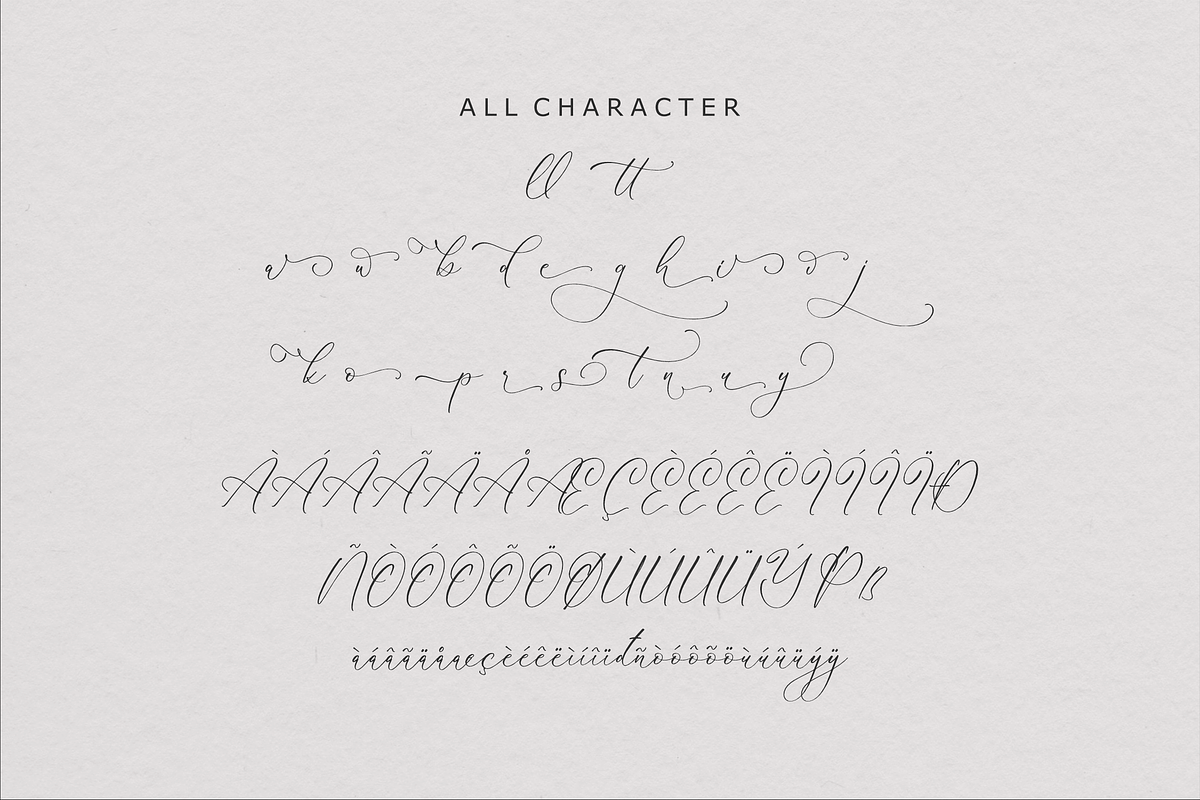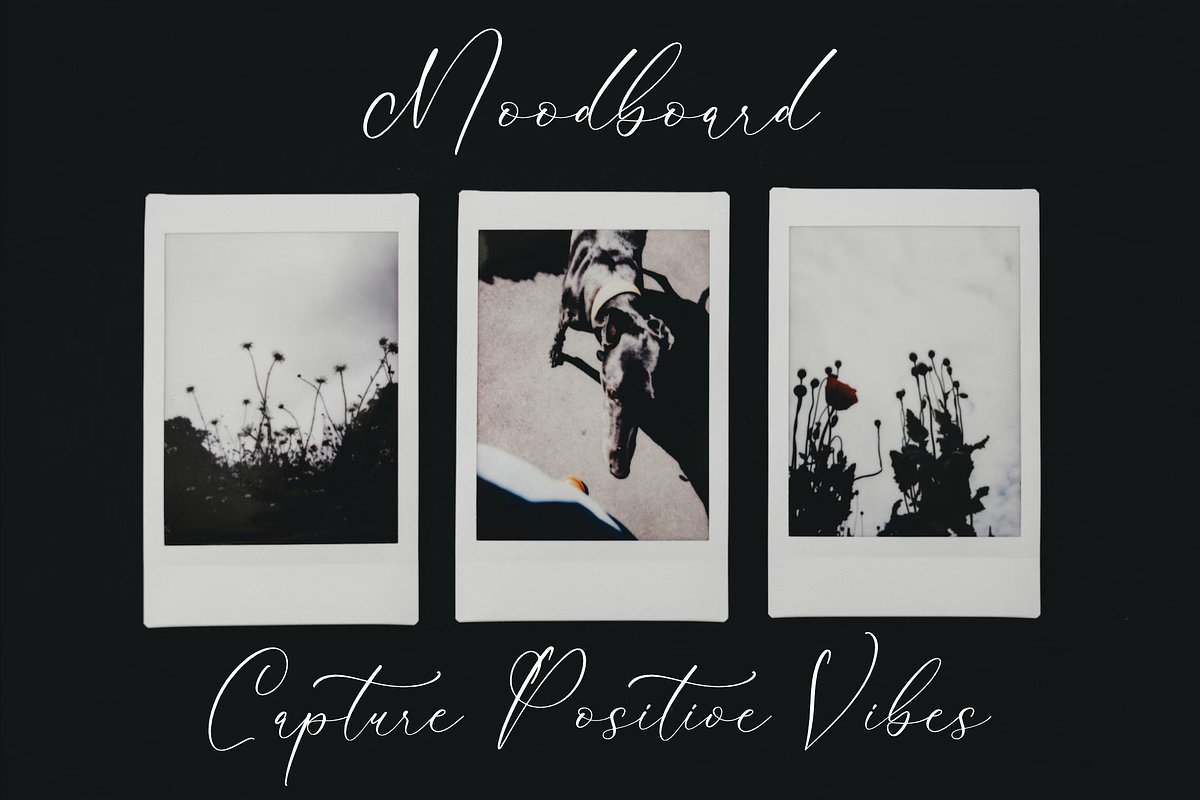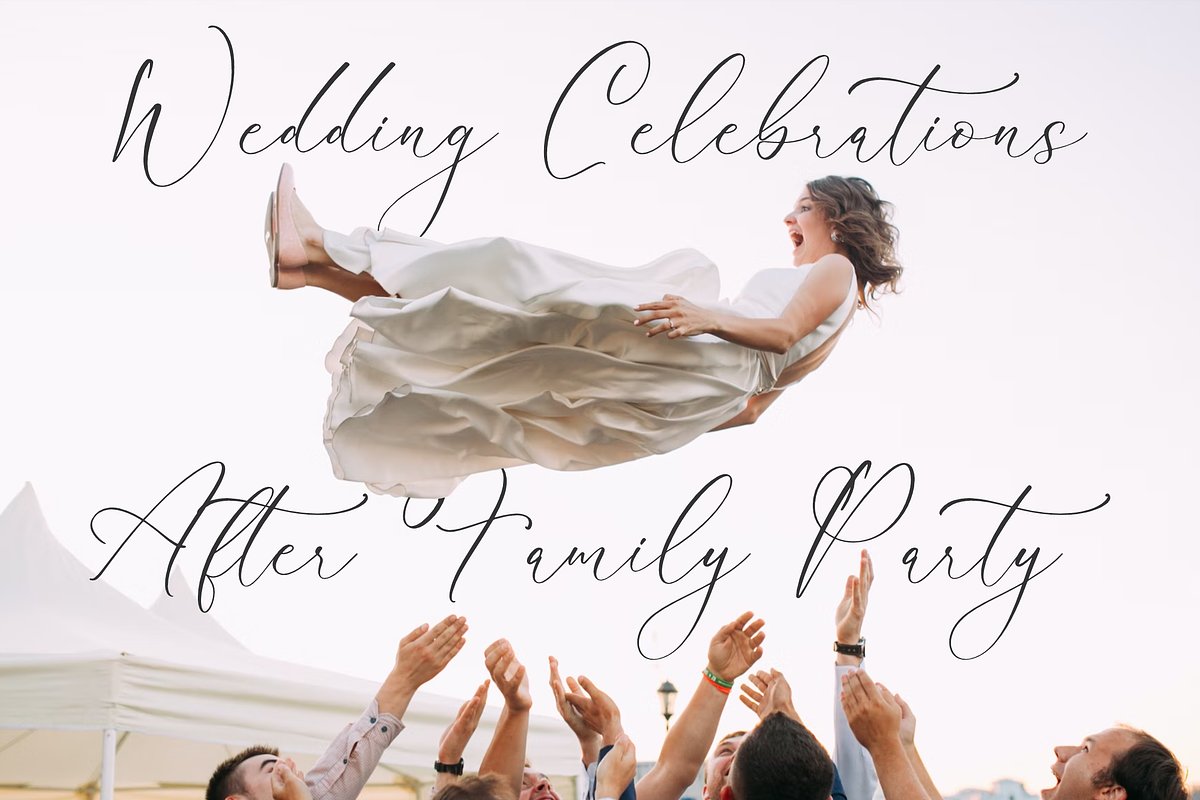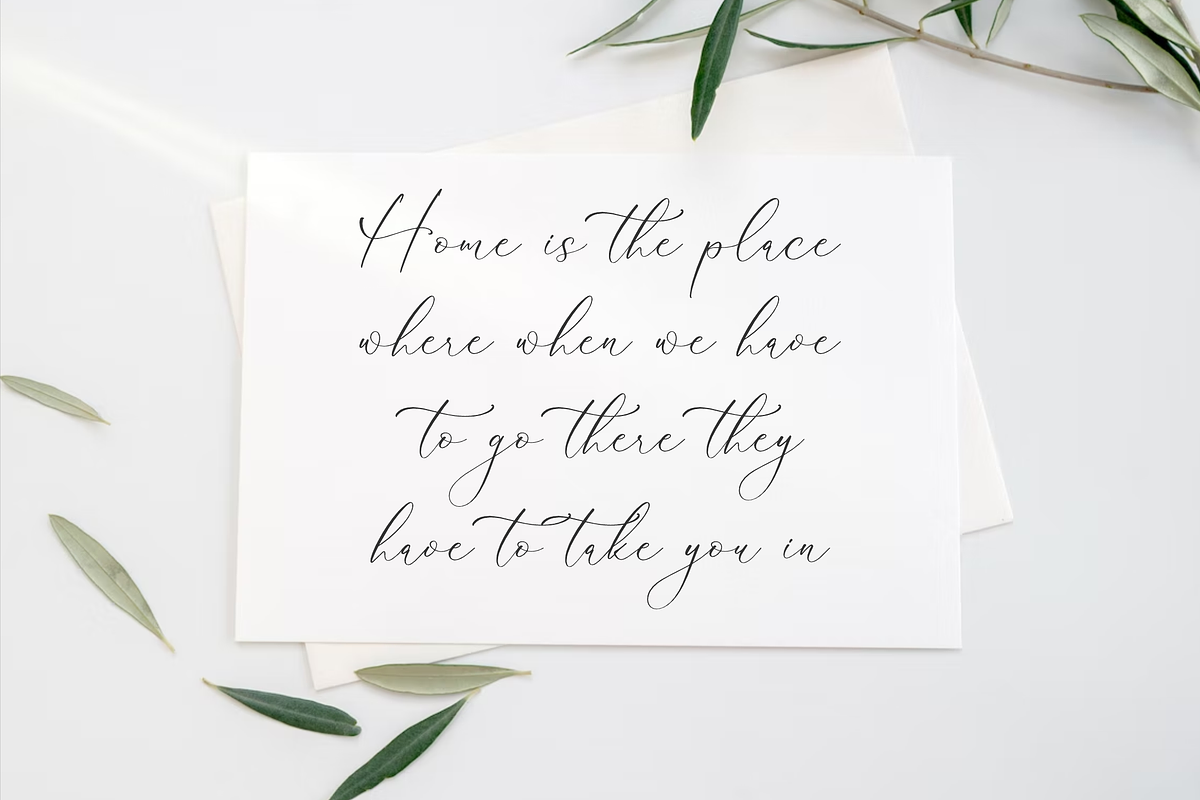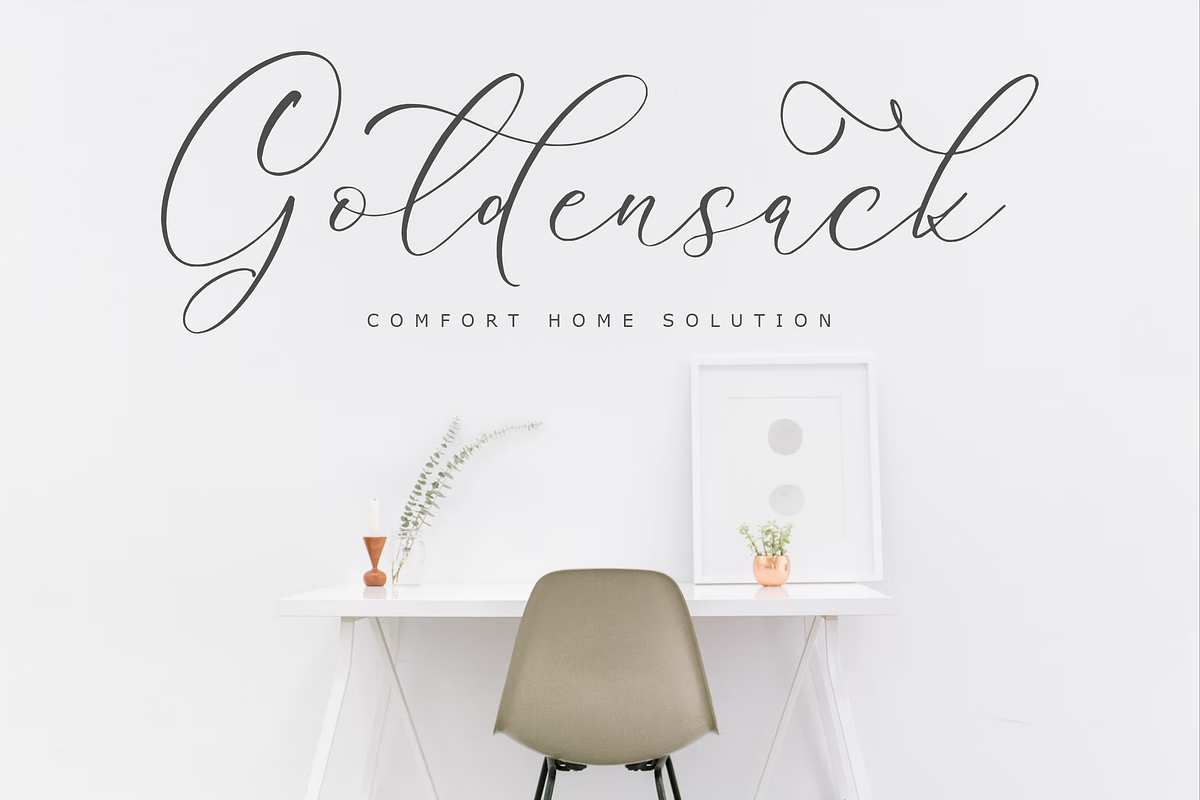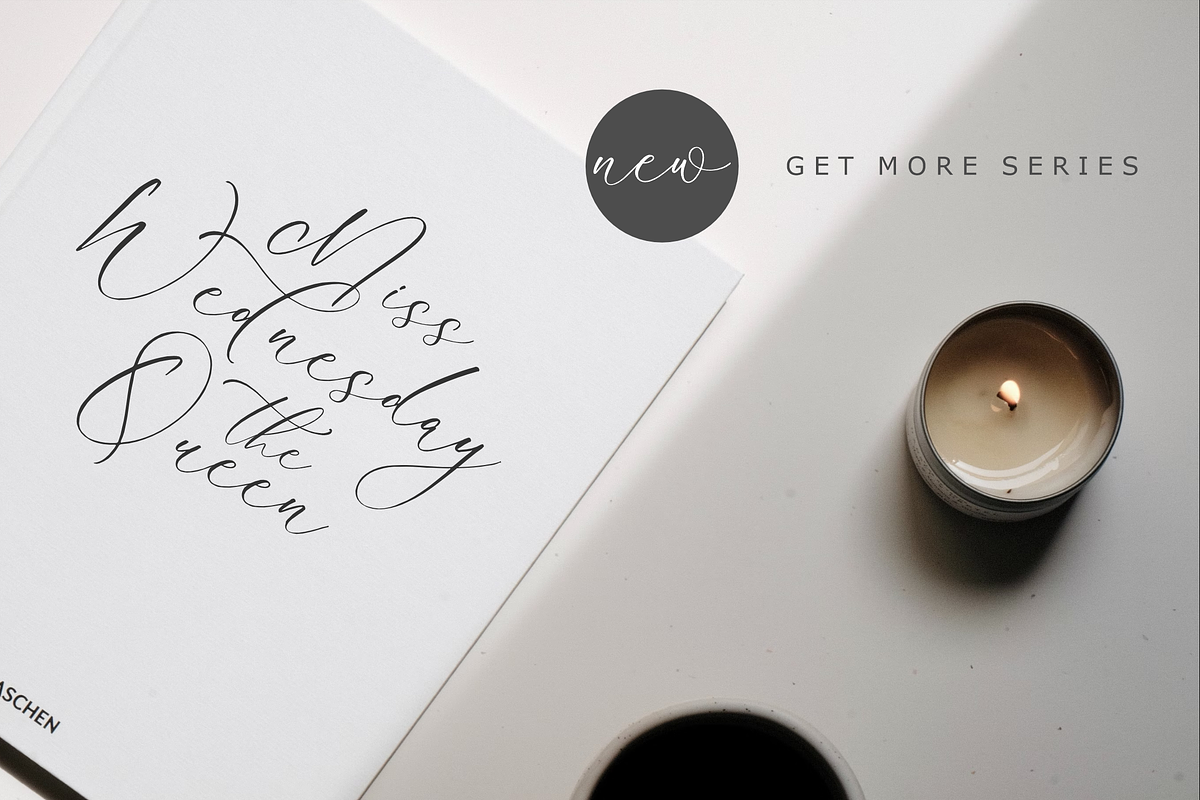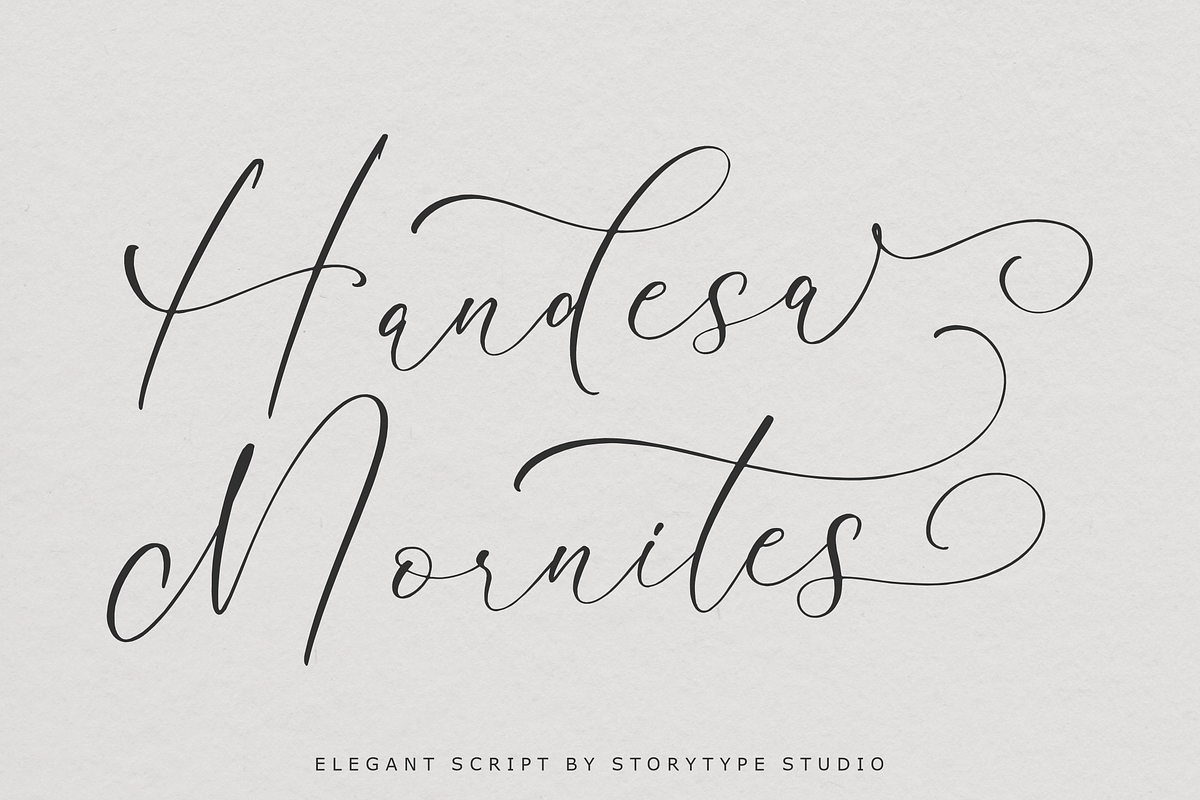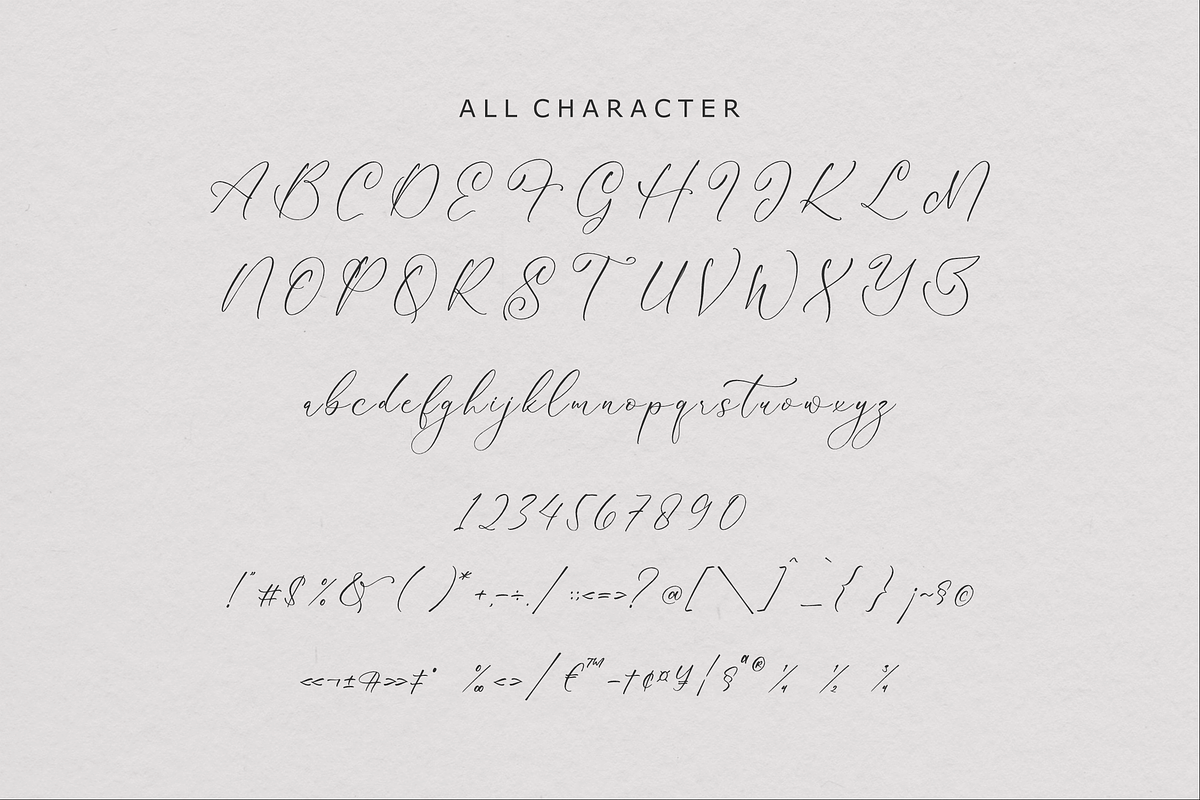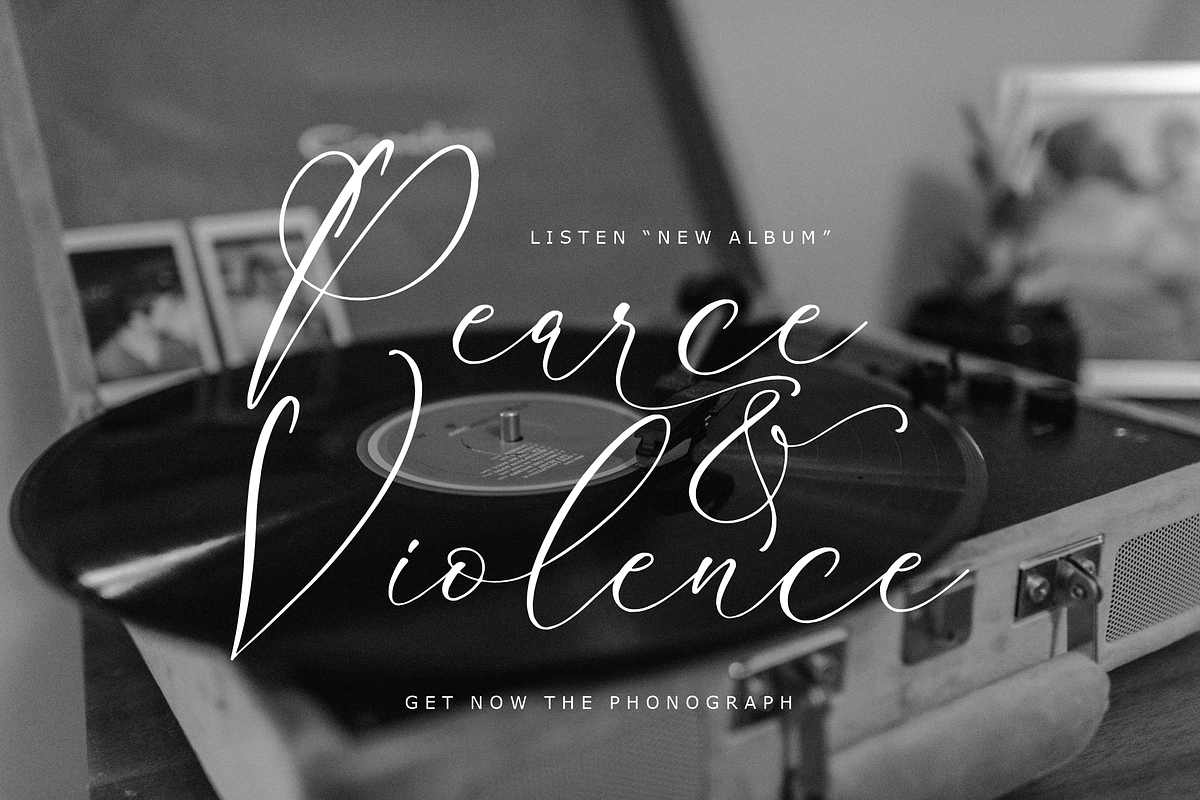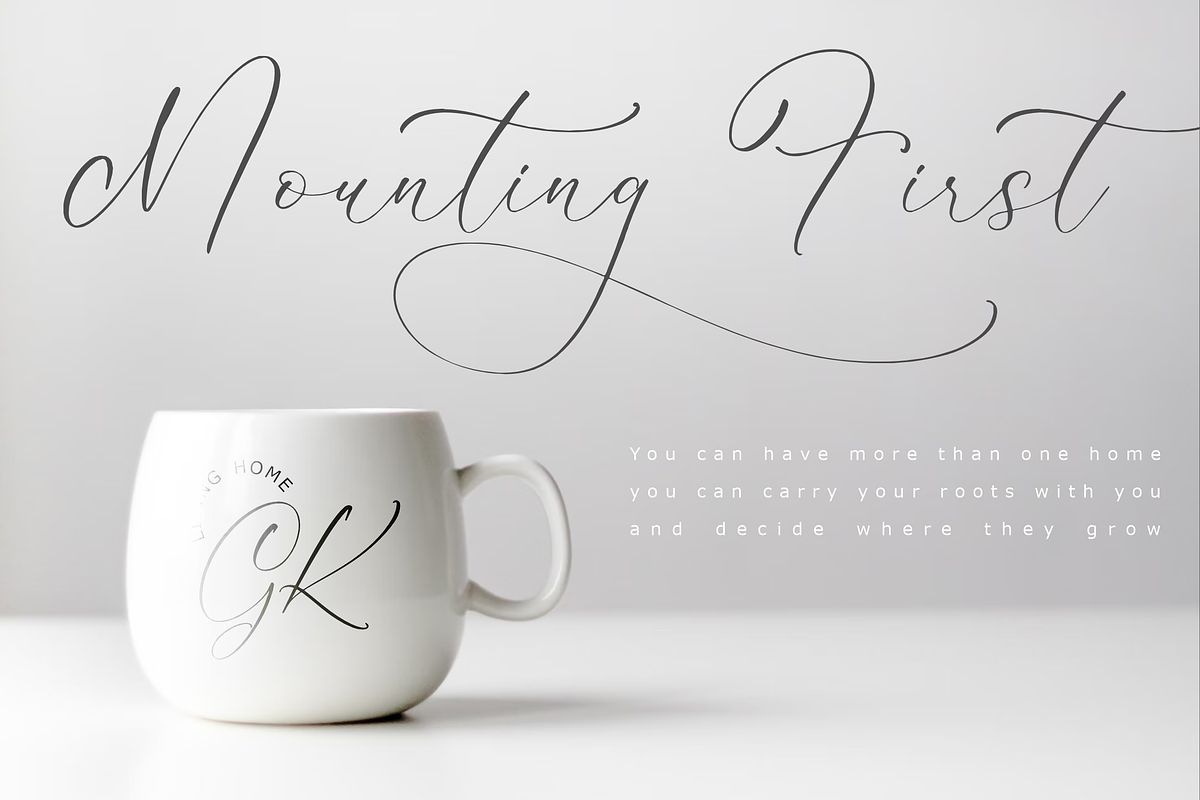
Handesa Mornites Elegant Script
Proudly present Handesa Mornites - Elegant Script , created by Storytype, A luxury script that has own unique style & modern look. This typeface is perfect for an elegant & luxury logo, book or movie title design, fashion brand, magazine, clothes, lettering, quotes, and so much more.